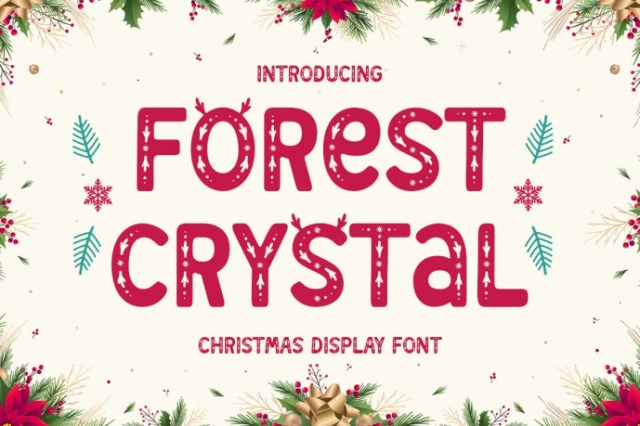
Forest Crystal Display Font
Froest Crystal Display Font that has a unique character theme and is suitable for use for Christmas themes. Forest Crystal Font is a font that is very suitable for use in the spirit of Christmas and long holidays. The font I created is very versatile, and fits various designs, making it the best. Add this font to your favorite creative ideas and see the results!
• Features: Singlecase, Punctuation Numbers, Alternate & Multilingual Support